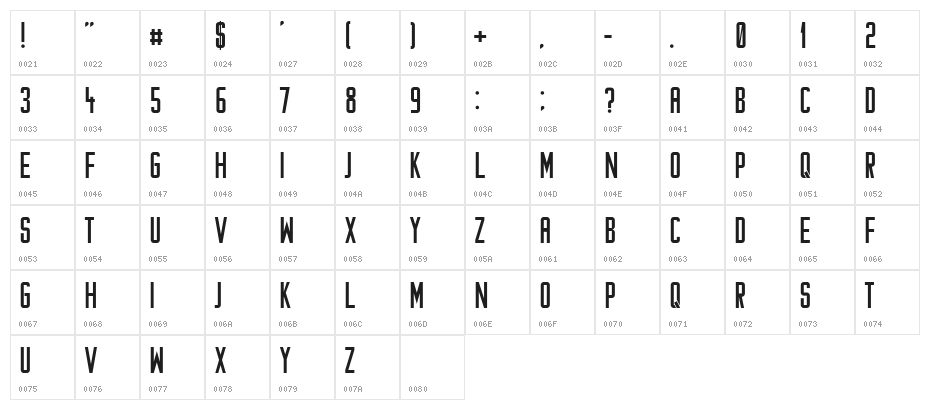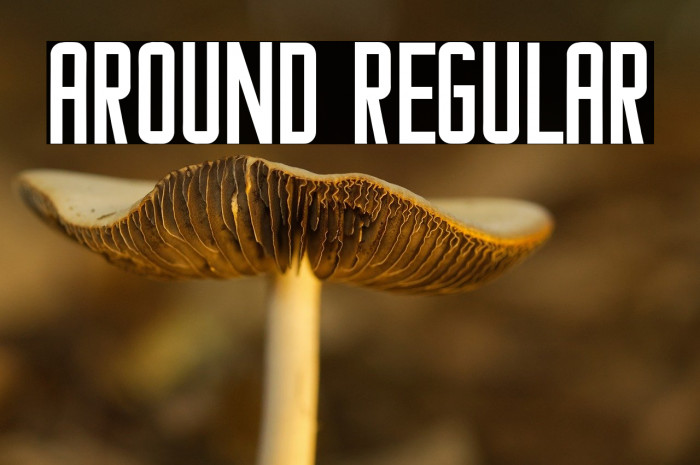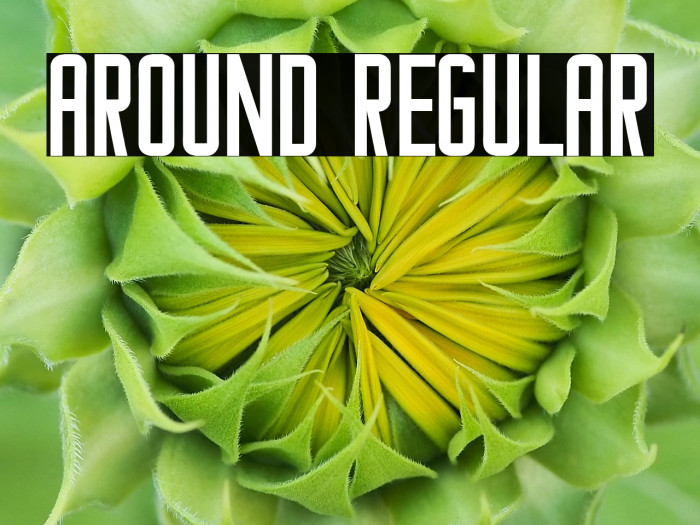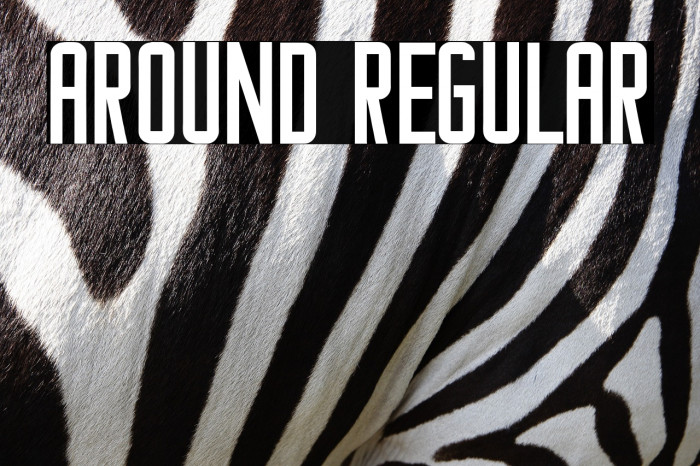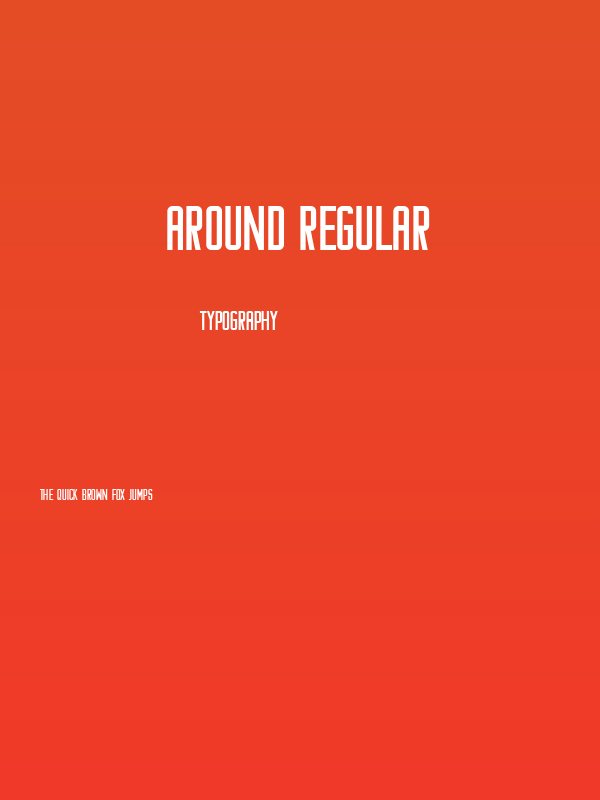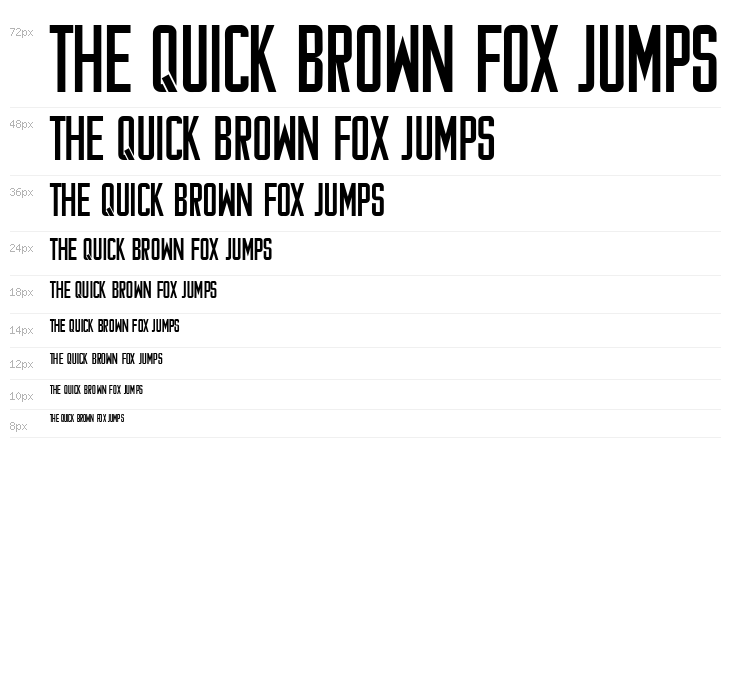
Around Regular Font
Around Regular Description
This font exhibits a bold and modern aesthetic with a strong geometric influence. The characters are tall and narrow, featuring clean lines and a consistent stroke width that contributes to a sleek and streamlined appearance. The uppercase letters are particularly striking, with sharp angles and a sense of uniformity that enhances readability. The numerals and special characters maintain the same design principles, ensuring a cohesive look across all elements. This font's distinct style makes it suitable for projects that require a contemporary and impactful visual presence.
| Proposed Projects | Ideal for branding, advertising, posters, and any design requiring a modern and impactful typeface. |